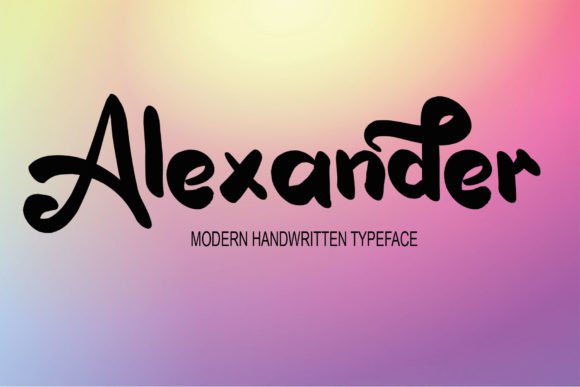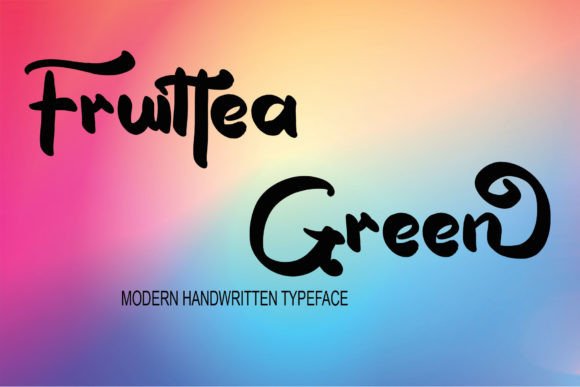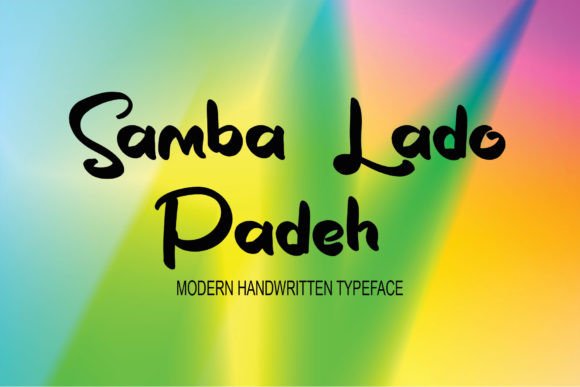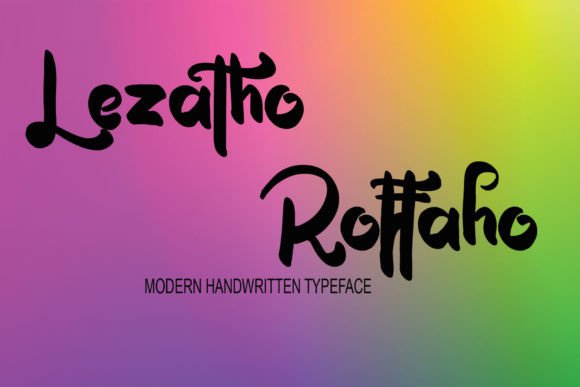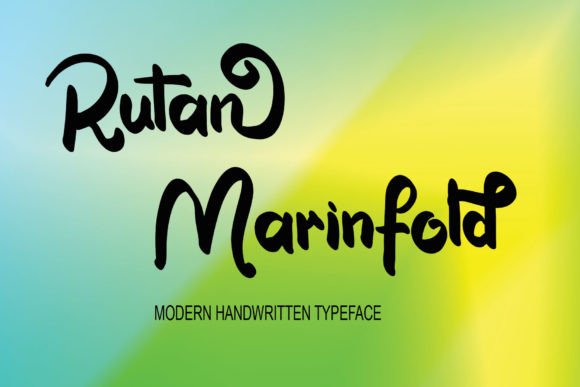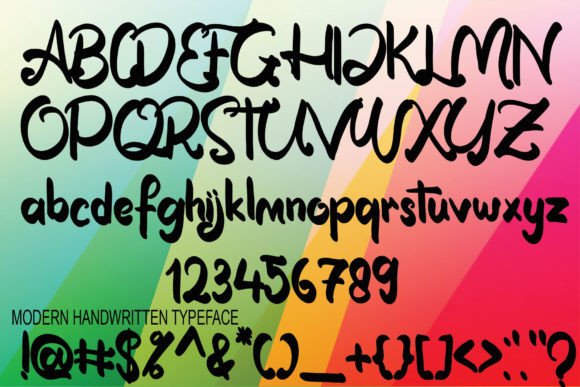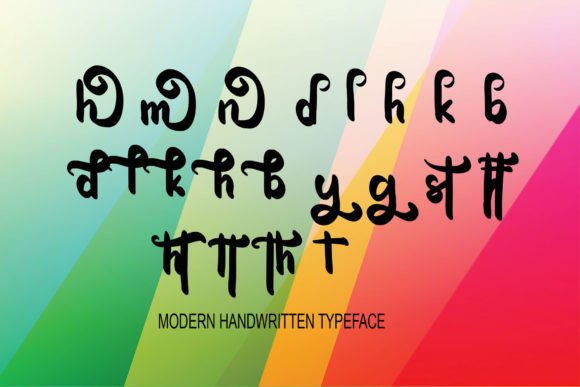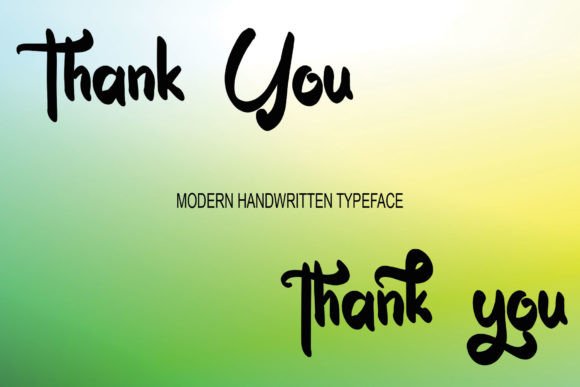
**Alexander – Simple Yet Stylish Handwritten Font**
Alexander is a charming handwritten font created with meticulous care. This font offers a unique blend of simplicity and style, making it a versatile choice for a wide range of design applications. Here’s why you should consider using Alexander in your projects:
1. **Handcrafted Elegance:** Alexander’s handwritten style adds a touch of elegance to your designs, making them more appealing and sophisticated.
2. **Tablet Precision:** Created using a tablet, Alexander ensures precision and consistency in each character, resulting in a polished and professional appearance.
3. **Versatile Usage:** This font is highly versatile and suitable for various design purposes, including websites, wedding invitations, business cards, signatures, and advertisements.
4. **Website-Friendly:** Alexander’s clean and legible design makes it an excellent choice for website typography, ensuring a pleasant reading experience for users.
5. **Wedding Invitations:** Use Alexander to create beautiful and personalized wedding invitations that capture the essence of the special day with a touch of handwritten charm.
6. **Business Cards:** Give your business cards a unique and memorable look by incorporating Alexander, adding a personal and stylish touch to your branding.
7. **Signatures:** Create digital or print signatures that stand out with Alexander’s elegant and signature-like appearance, adding a personalized touch to your documents.
8. **Advertisement Impact:** Whether for product advertisements or other marketing campaigns, Alexander’s cool and stylish vibe can enhance the visual appeal of your ads and capture viewers’ attention.
9. **Simplicity with Style:** Alexander strikes the perfect balance between simplicity and style, making it suitable for both casual and professional designs.
10. **Cool Aesthetics:** Despite its simplicity, Alexander exudes a cool and trendy aesthetic that can elevate the overall look of your projects.
11. **Stylish Design:** The font’s carefully crafted characters give your designs a stylish and modern edge, enhancing their visual impact.
12. **Easy-to-Read:** Alexander’s legibility ensures that your message is communicated effectively in both digital and print media.
13. **Unique Appeal:** Stand out from the crowd by using Alexander to add a unique and handcrafted touch to your designs.
14. **Professionalism:** While maintaining its handwritten charm, Alexander adds a level of professionalism to your designs that can be particularly appealing for business-related projects.
15. **Customization:** Experiment with different variations and design elements to customize Alexander and create designs that suit your specific needs and preferences.
Alexander is more than just a simple font; it’s a versatile and stylish choice that can enhance the elegance and sophistication of your design projects. Whether you’re working on digital or print materials, Alexander’s unique blend of simplicity and style will help your creations stand out and make a lasting impression.